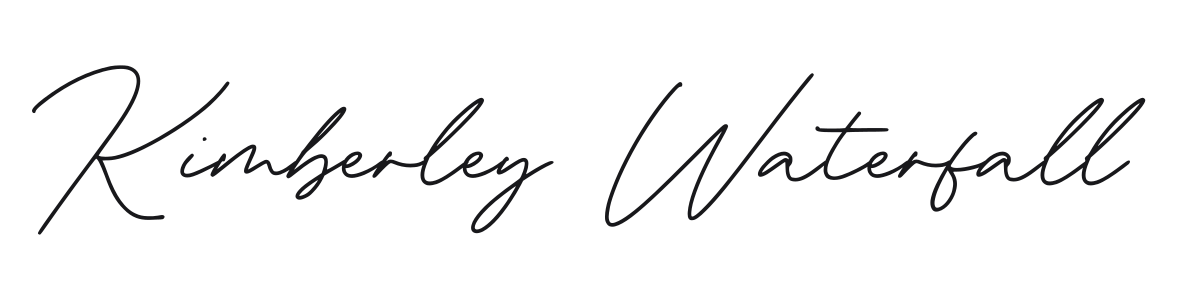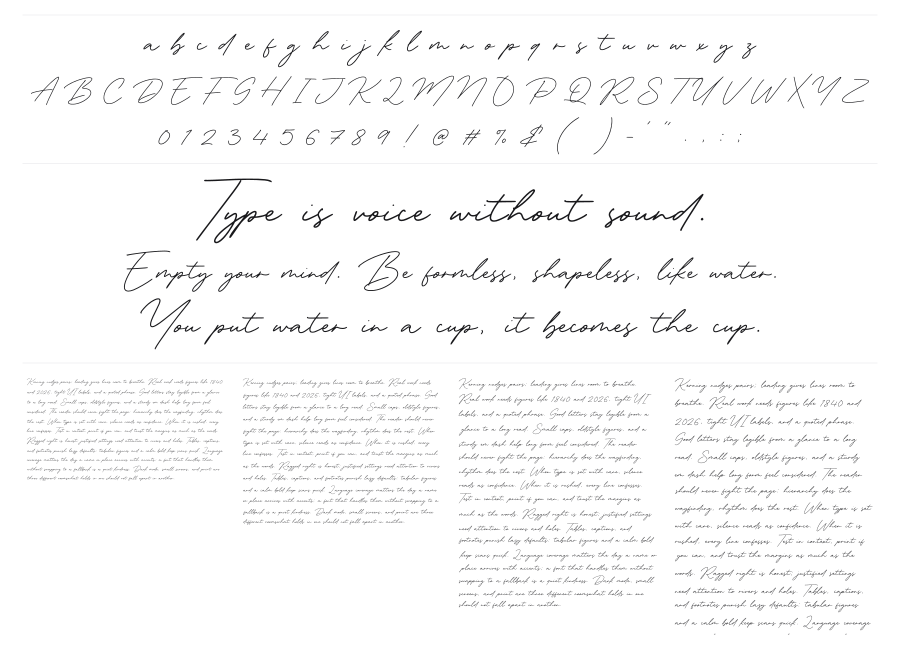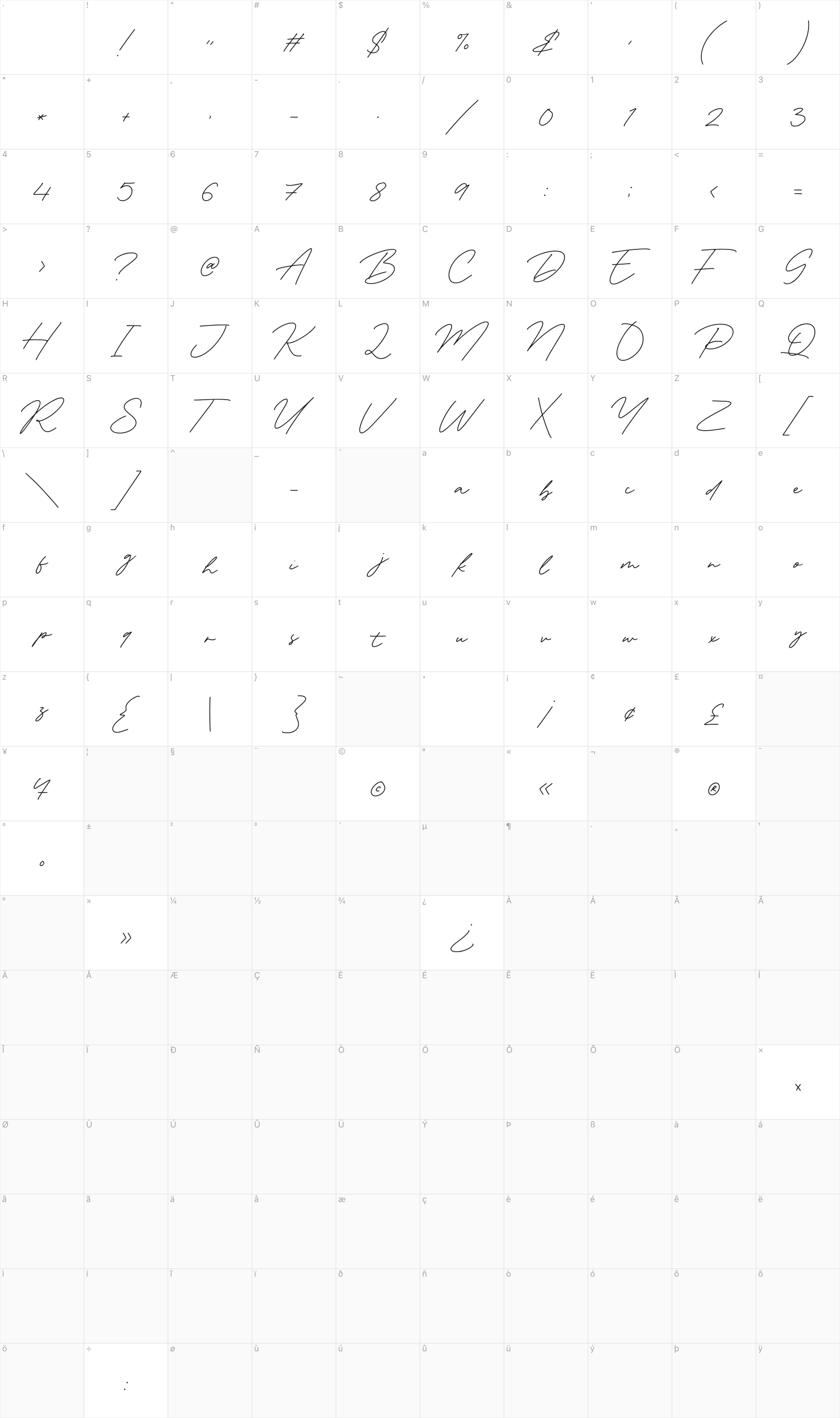
Kimberley Waterfall
Kimberley Waterfall is a flowing casual script with thin, connected strokes and a natural handwritten rhythm. Long, sweeping connectors between letters give it an effortless, unhurried quality that feels at once polished and personal. It works best at large display sizes where the delicate hairline details can breathe.